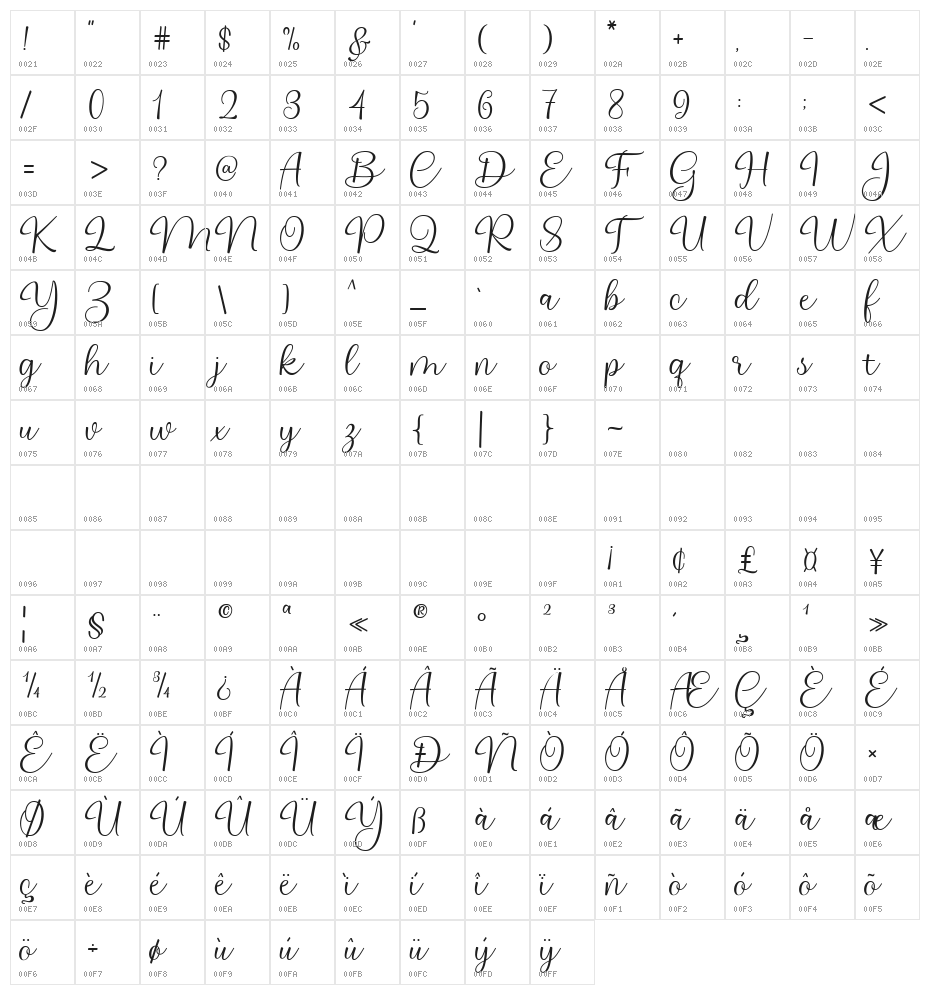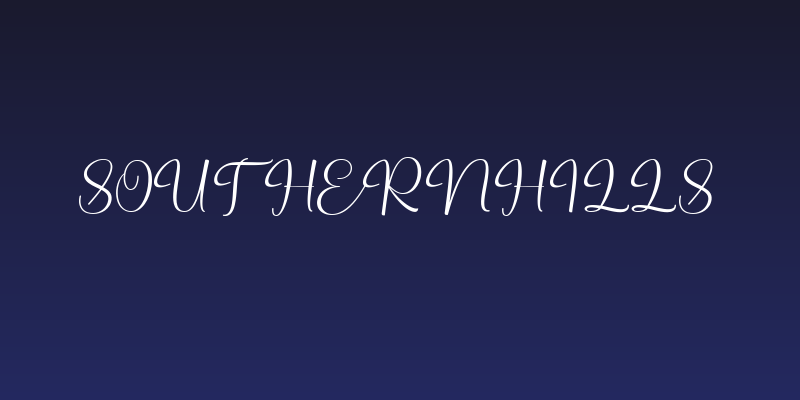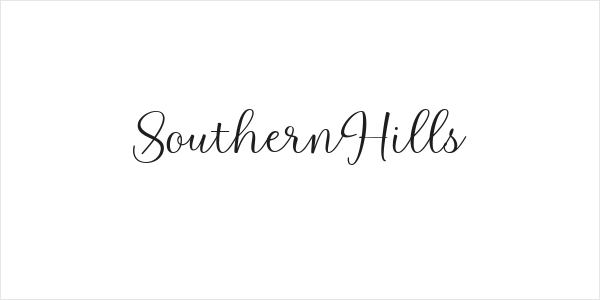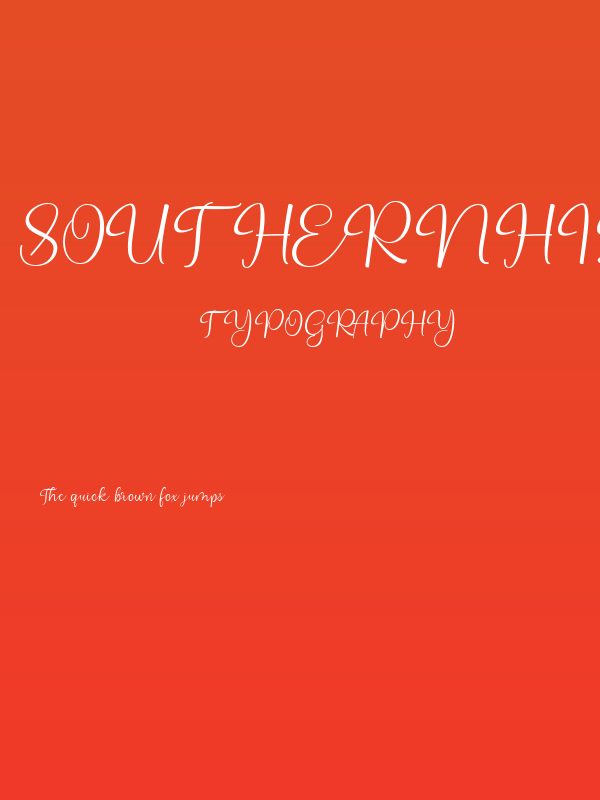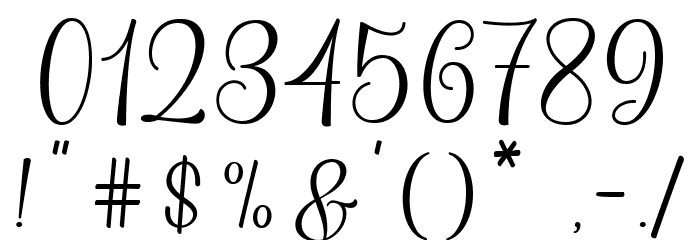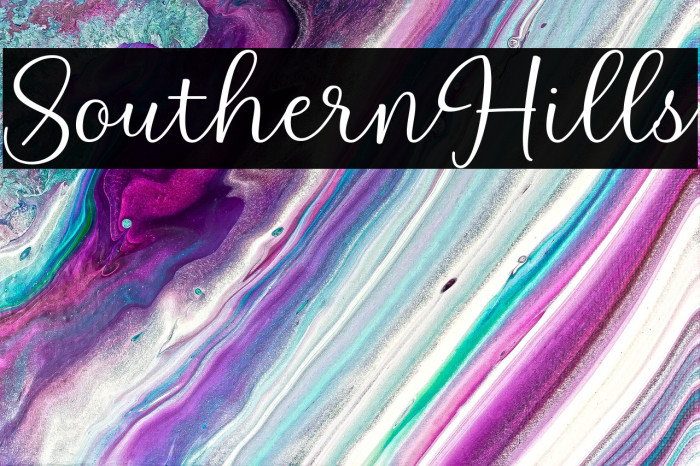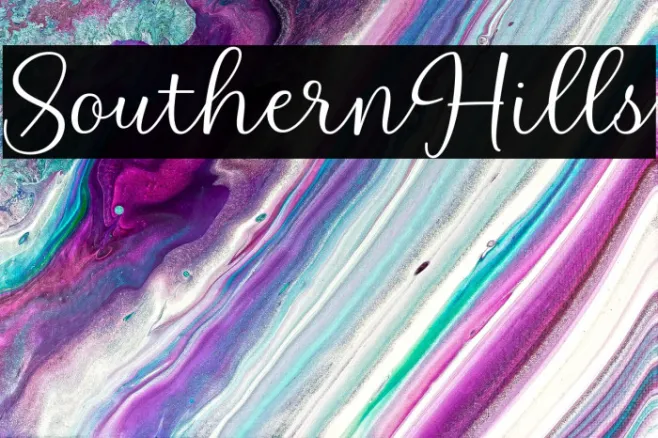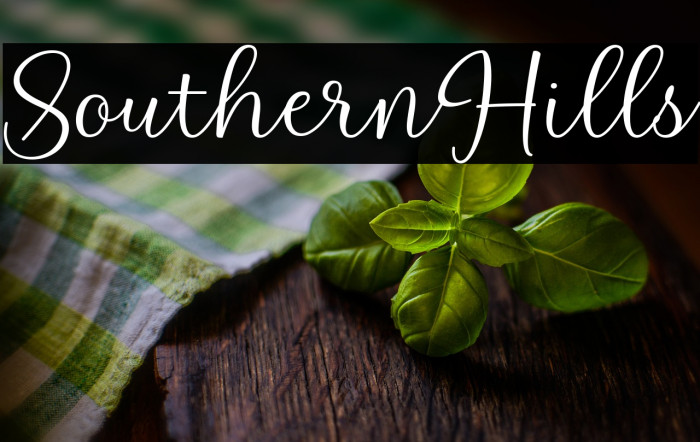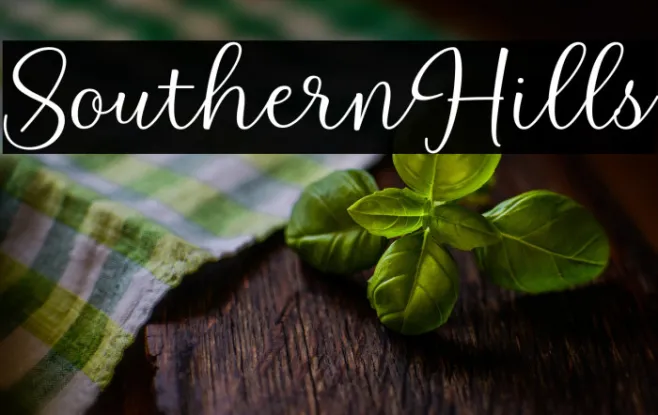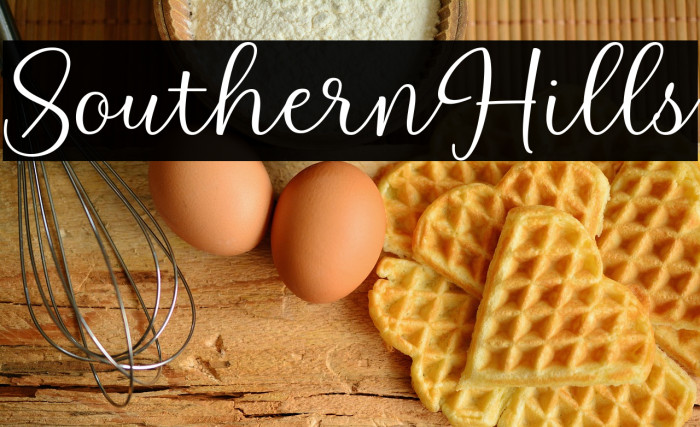
SouthernHills Font
SouthernHills Description
This elegant script font features a flowing, cursive style with smooth, connected strokes that evoke a sense of sophistication and grace. The uppercase letters are tall and slender, with gentle curves and loops that add a touch of flair. The lowercase letters maintain a consistent flow, enhancing readability while preserving the font's decorative appeal. Numbers and special characters are crafted with the same attention to detail, ensuring a cohesive look across all text elements. This font is ideal for projects that require a personal, handwritten touch, such as invitations, greeting cards, and branding materials.
| Proposed Projects | Ideal for wedding invitations, greeting cards, branding, and elegant signage. |